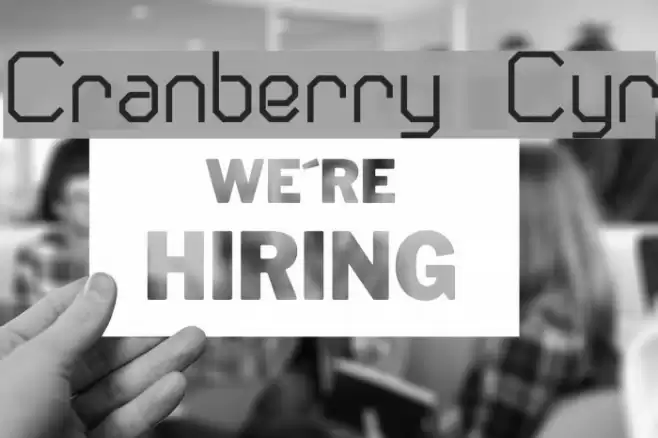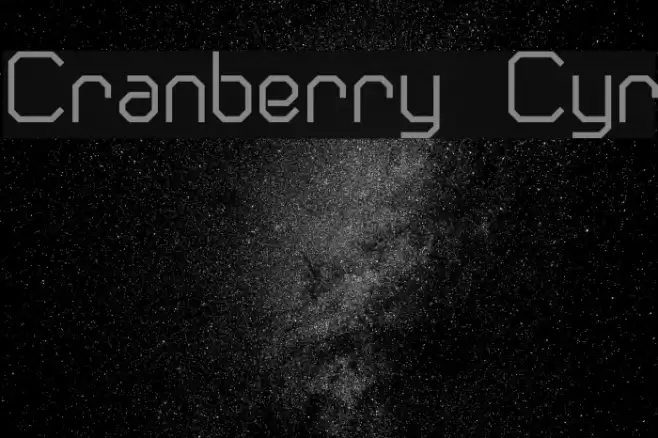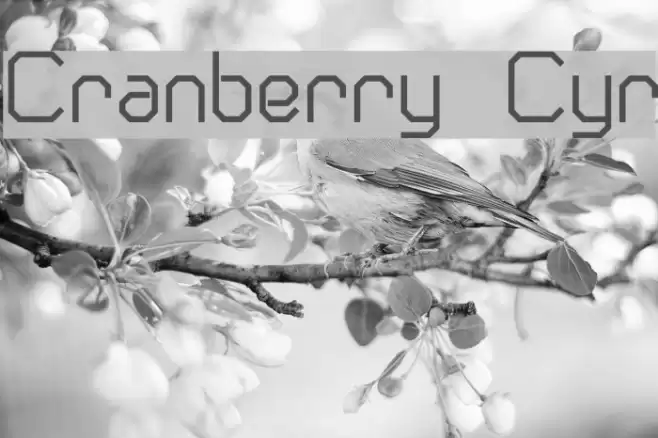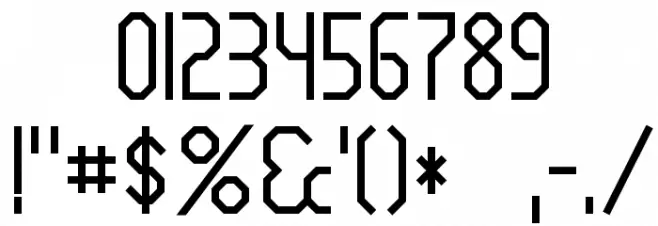
Cranberry Cyr Font
Cranberry Cyr Description
This font features a geometric and angular design, characterized by its straight lines and sharp corners. The uppercase and lowercase letters maintain a consistent height, creating a uniform appearance. The numerals and special characters follow the same angular style, enhancing the cohesive look. The font's structure is reminiscent of digital or technical aesthetics, making it suitable for modern and futuristic themes. Its clean and precise lines ensure readability while adding a distinctive edge to any design.
A geometric, angular font with a modern, digital aesthetic from Futuristic fonts.
- Proposed Projects: Ideal for tech-related branding, digital interfaces, modern posters, and futuristic designs.
- Use Case: Logos, Headlines, Digital interfaces